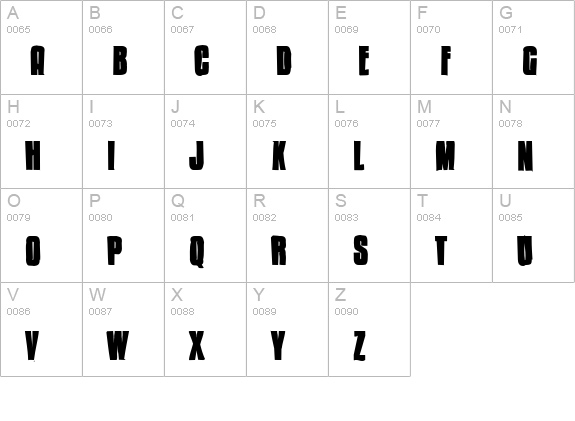
Kenyan Coffee Ink Font Details
Kenyan Coffee Ink font is a bold and expressive typeface inspired by the rich flavors and aromas of Kenyan coffee. Its intricate details and unique design make it perfect for adding a touch of sophistication to your projects. This font captures the essence of the Kenyan coffee culture with its organic shapes and elegant curves. The best part? Kenyan Coffee Ink font is available for free download at FontsMarket.com. Whether you're designing a coffee shop logo, packaging, or a poster for a coffee-themed event, this versatile font will elevate your designs and make them stand out. Embrace the warmth and depth of Kenyan Coffee Ink font and bring a taste of Kenya to your creative projects.